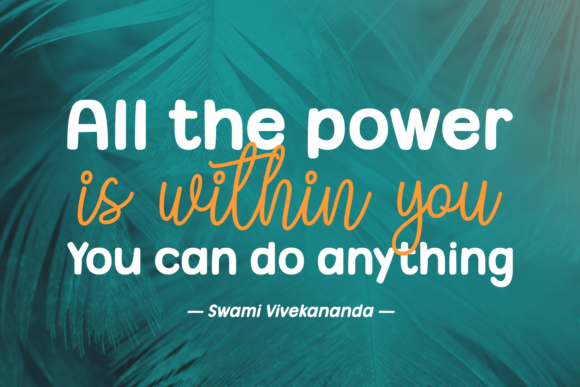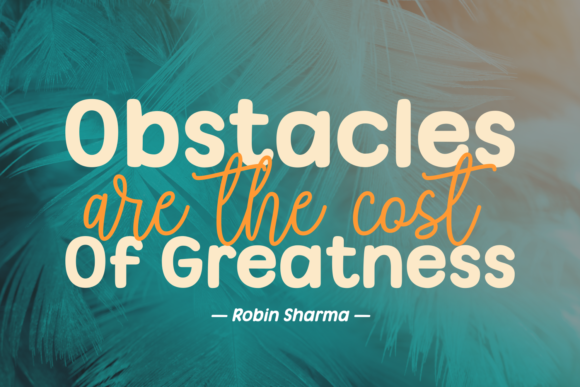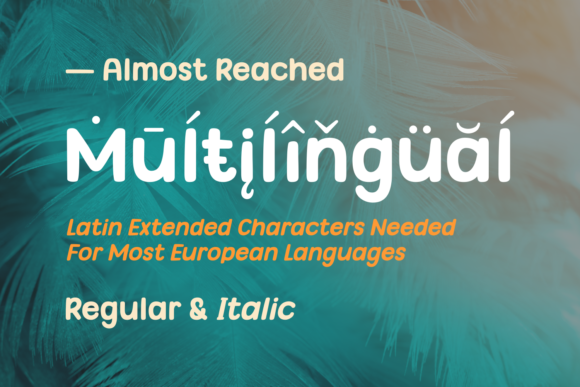
Discovering the Joy of Almost Reached Font
Who hasn’t been there – stuck on a design project, desperately searching for the perfect font to bring it all together? The frustration is real, but the excitement is even greater when you stumble upon that elusive font that makes everything click into place. For designers, the thrill of the hunt is part of the fun, and Almost Reached Font is sure to be a prized catch.
Almost Reached Font is a delightful display font that exudes playfulness and authenticity, making it the perfect choice for children’s activities and school projects. Its whimsical charm is sure to captivate young minds and inspire creativity. But what makes Almost Reached Font truly valuable is its versatility – it’s just as at home in a children’s book as it is in a branding project, adding a touch of personality to any design.
Almost Reached Font Key Features
- Unique Characteristics: The Almost Reached Font features a unique, futuristic design with a blend of geometric and organic elements, giving it a distinctive look that sets it apart from other fonts.
- Font Style: The Almost Reached Font is available in a single style, but it offers a range of weights, from light to bold, allowing designers to choose the perfect weight for their project.
Almost Reached Font Review
Overall, I think Almost Reached Font is a unique and intriguing addition to any design project. It has a certain charm that can add character to a piece of text. ✨ The font’s distinctive features, such as the uneven stroke widths and letterforms, can create a sense of movement and energy.
One of the things I like about Almost Reached Font is its versatility. It can be used in a variety of contexts, from titles and headings to body text. The font is also highly customizable, allowing designers to fine-tune its look to suit their specific needs. ✨ Additionally, the font’s digital nature makes it easy to use and distribute.
- Unique and distinctive features
- Versatile and suitable for various contexts
- Digital nature makes it easy to use and distribute
- May not be suitable for formal or traditional designs
- Can be overwhelming in large quantities
- May require additional styling to balance its eccentricities
Overall, I think Almost Reached Font is a great choice for designers looking to add some visual interest to their projects. However, it may not be the best fit for every design situation. With careful use and styling, this font can be a real showstopper.
Almost Reached Font is a great choice for titles, headings, and body text in creative projects.
Use it to add a touch of elegance and sophistication to your designs.
Alternatives to Almost Reached Font
Lato is a modern sans-serif font that is highly legible and versatile. It’s suitable for various design projects, including corporate branding, websites, and mobile apps. Lato is more modern and minimalist compared to Almost Reached Font, which has a more traditional feel.
Open Sans is a clean and highly readable sans-serif font that is ideal for digital design. It’s designed to be clear and concise, making it perfect for body text in websites, mobile apps, and other digital platforms. Open Sans is more modern and clean compared to Almost Reached Font, which has a more rustic feel.
Montserrat is a geometric sans-serif font that is highly versatile and suitable for various design projects, including branding, websites, and mobile apps. It’s designed to be clean and modern, making it a great alternative to Almost Reached Font for designers who want a more contemporary look.